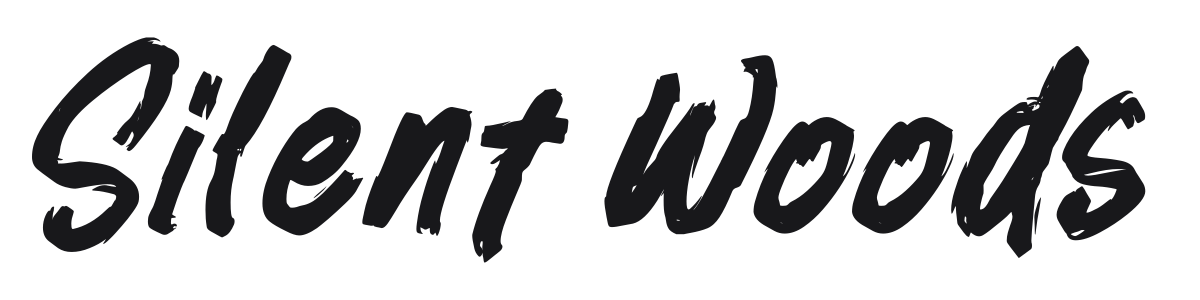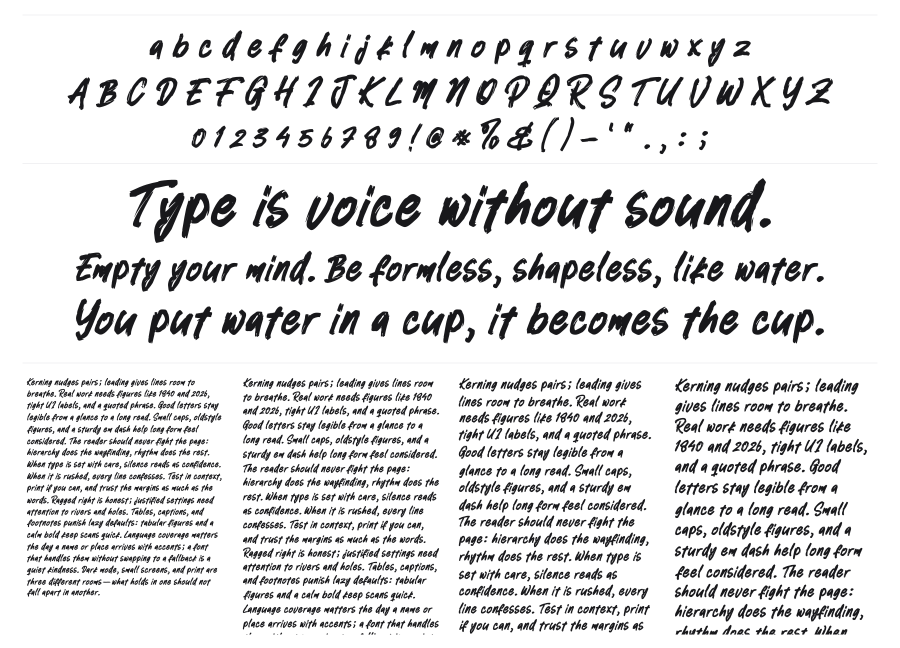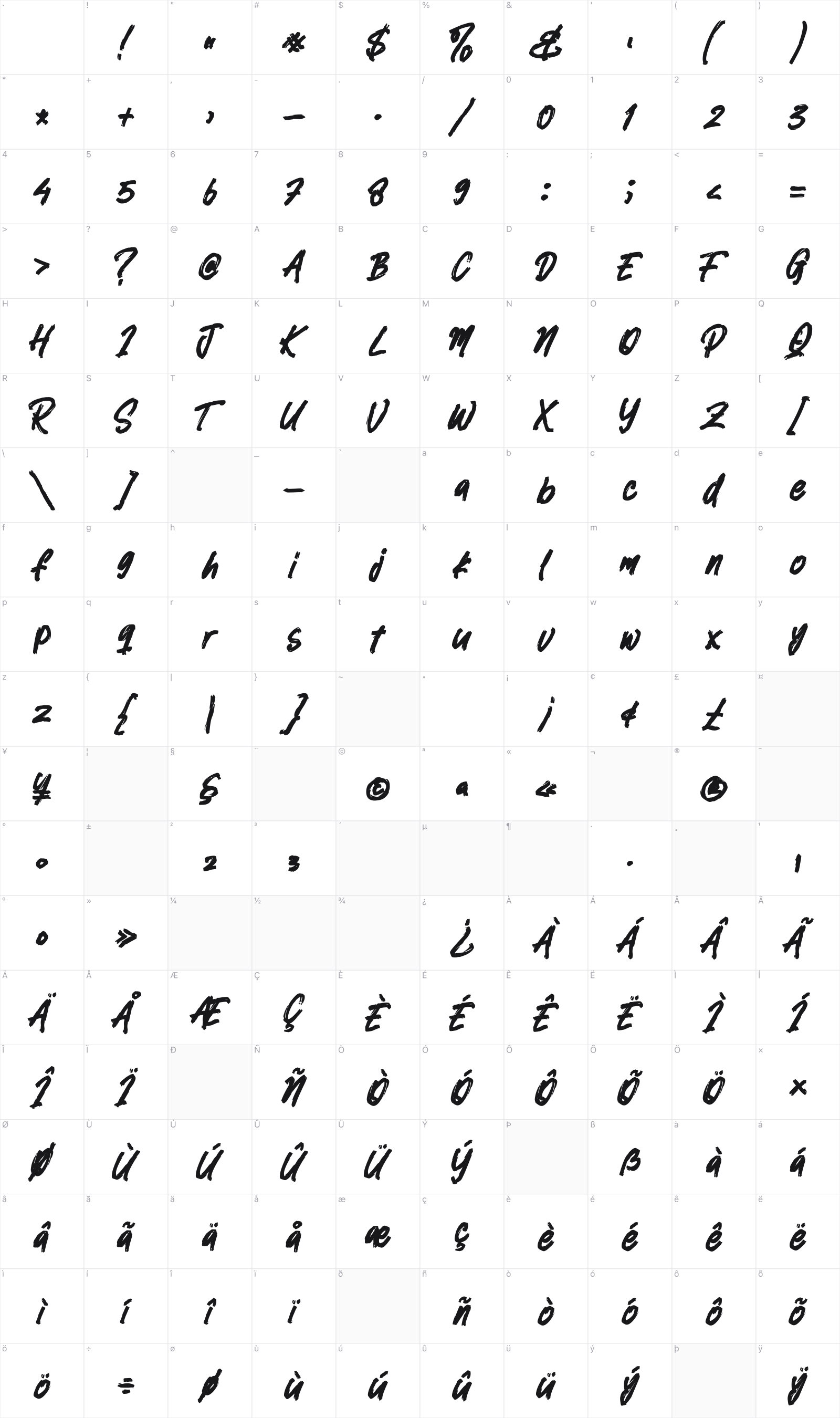
Silent Woods
Silent Woods is a bold brush script with heavy ink texture and a confident forward lean. Rough bristle strokes and irregular edges give each character a hand-painted, spontaneous feel that sits somewhere between street art and wilderness signage. It brings raw energy to posters, album covers, and brand identities that need an untamed edge.